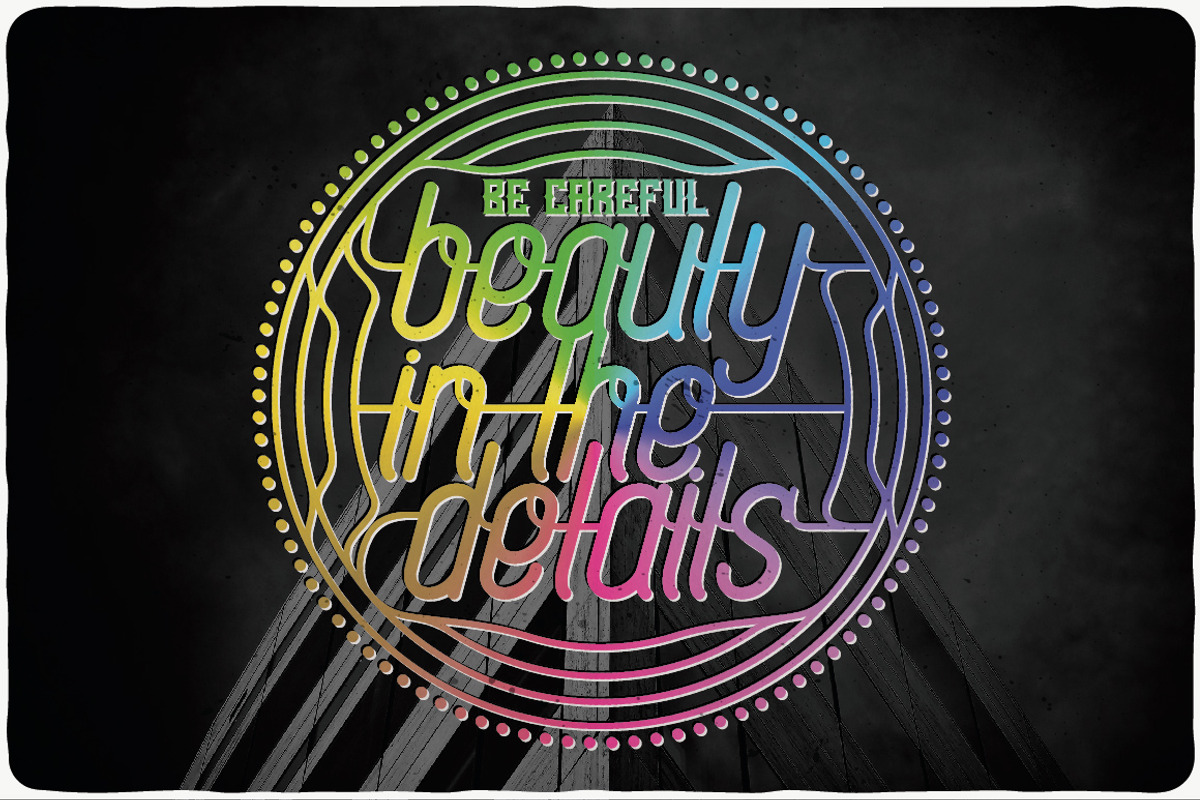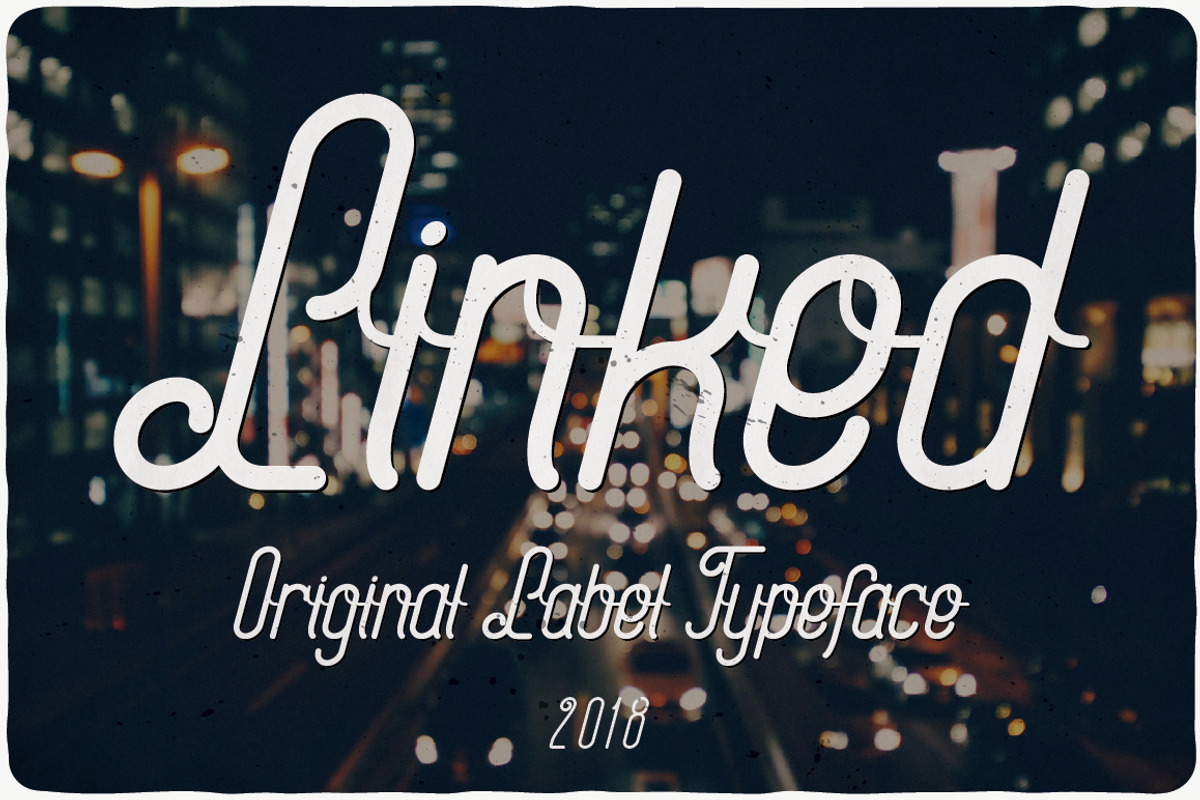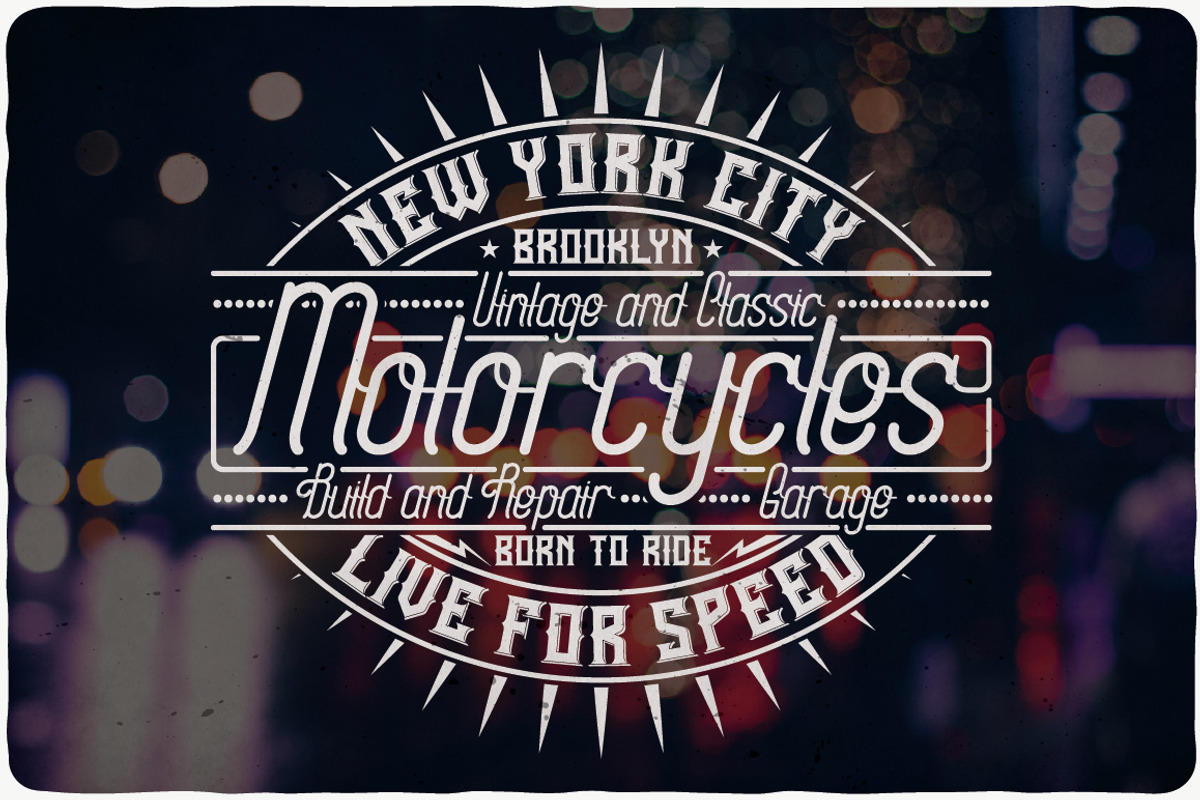
Linked Label Typeface
Introducing a new typeface named "Linked". This typeface includes two styles, for sample look at 4th preview. This typeface will made your design looks like handcrafted, fresh and dynamic :)